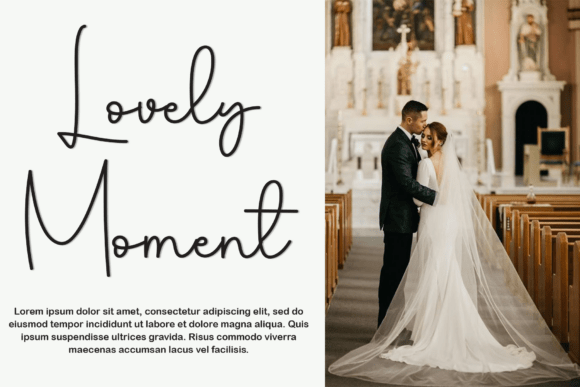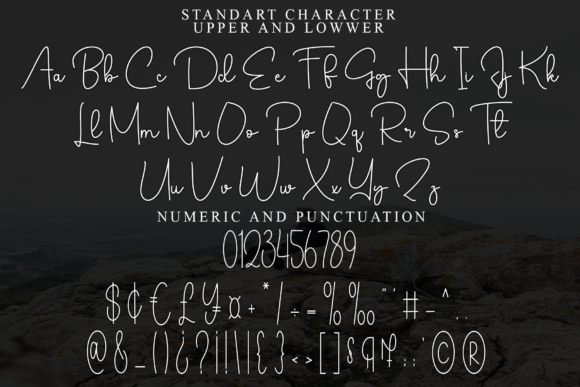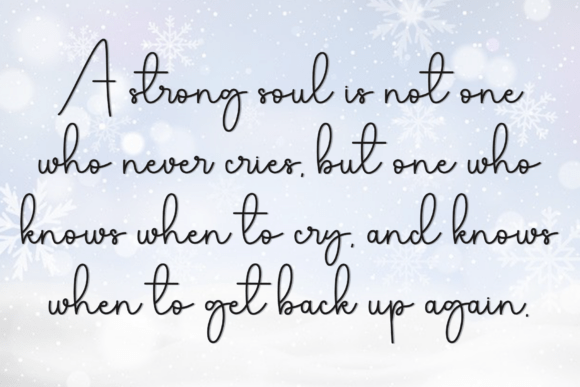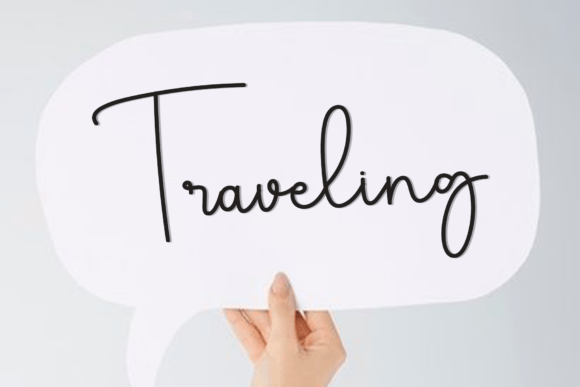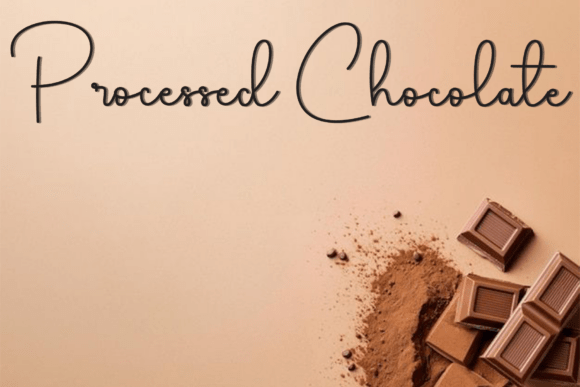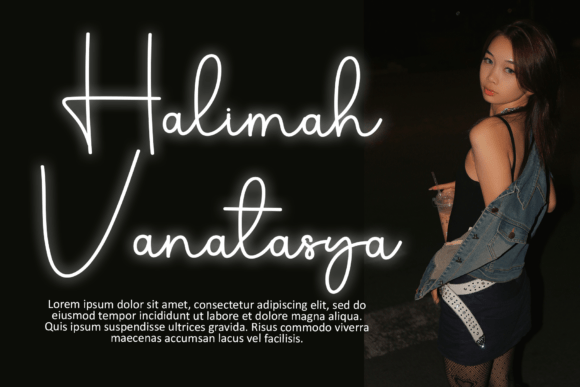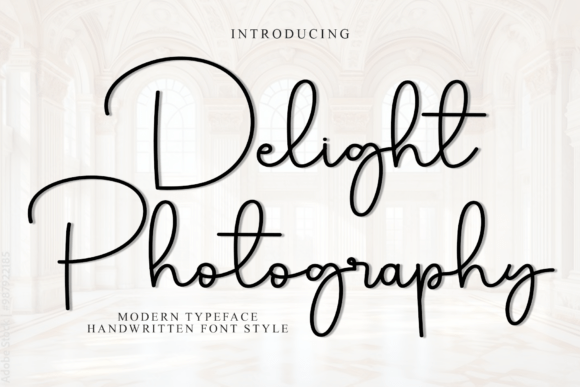
Discover the Charm of Delight Photography Font: Elevate Your Designs with a Unique Touch
In the world of design, a font can make all the difference in capturing the essence of a project. For those seeking a beautiful and eye-catching typeface, look no further than the Delight Photography Font. This stunning font is designed with a soft, unique touch that sets it apart from more traditional typefaces. Its distinctive strokes give it a special character, making it not only meaningful but also incredibly versatile for future use.
A Font for Creative Expression
Delight Photography Font boasts a range of characters that make it perfect for a variety of design projects, crafts, and other creative works. Whether you’re a professional designer or a crafty hobbyist, this font is sure to inspire. Its natural style and fluid lines evoke a sense of elegance and sophistication, making it ideal for projects that require a touch of refinement.
Ideal for a Wide Range of Products
The Delight Photography Font is not limited to a specific type of project or product. Its broad appeal makes it suitable for a wide range of designs, from invitations and greeting cards to posters, flyers, and digital media. The font’s unique charm and character will enhance your designs, making them more appealing to a broad audience across different artistic and creative fields.
Enhance Your Designs
With Delight Photography Font, you can elevate your designs to new heights. The font’s soft, unique touch adds a layer of depth and emotion to any project, making it more engaging and captivating. Whether you’re aiming to evoke a sense of nostalgia, romance, or playfulness, this font provides the perfect foundation for your creative expression.
Why Choose Delight Photography Font?
• Unique and Eye-Catching: Stand out from the crowd with a font that has a distinctive and special character.
• Versatile: Suitable for a wide range of projects, from digital designs to handmade crafts.
• Natural Style: Adds a touch of elegance and sophistication to any design.
• Broad Appeal: Appeals to a wide audience across different artistic and creative fields.
Delight Photography Font is more than just a typeface; it’s a tool for creative expression. Its unique design, versatility, and broad appeal make it an invaluable asset for designers and crafters alike. Whether you’re looking to add a touch of elegance to your projects or simply want to explore new creative avenues, Delight Photography Font is sure to inspire. Discover the charm of Delight Photography Font today and elevate your designs with a unique touch that captivates and delights.
Incorporate Delight Photography Font into your creative arsenal and unlock a world of possibilities. With its distinctive strokes, natural style, and compatibility with a range of applications, this font is poised to become your go-to choice for projects that demand a little extra something special.